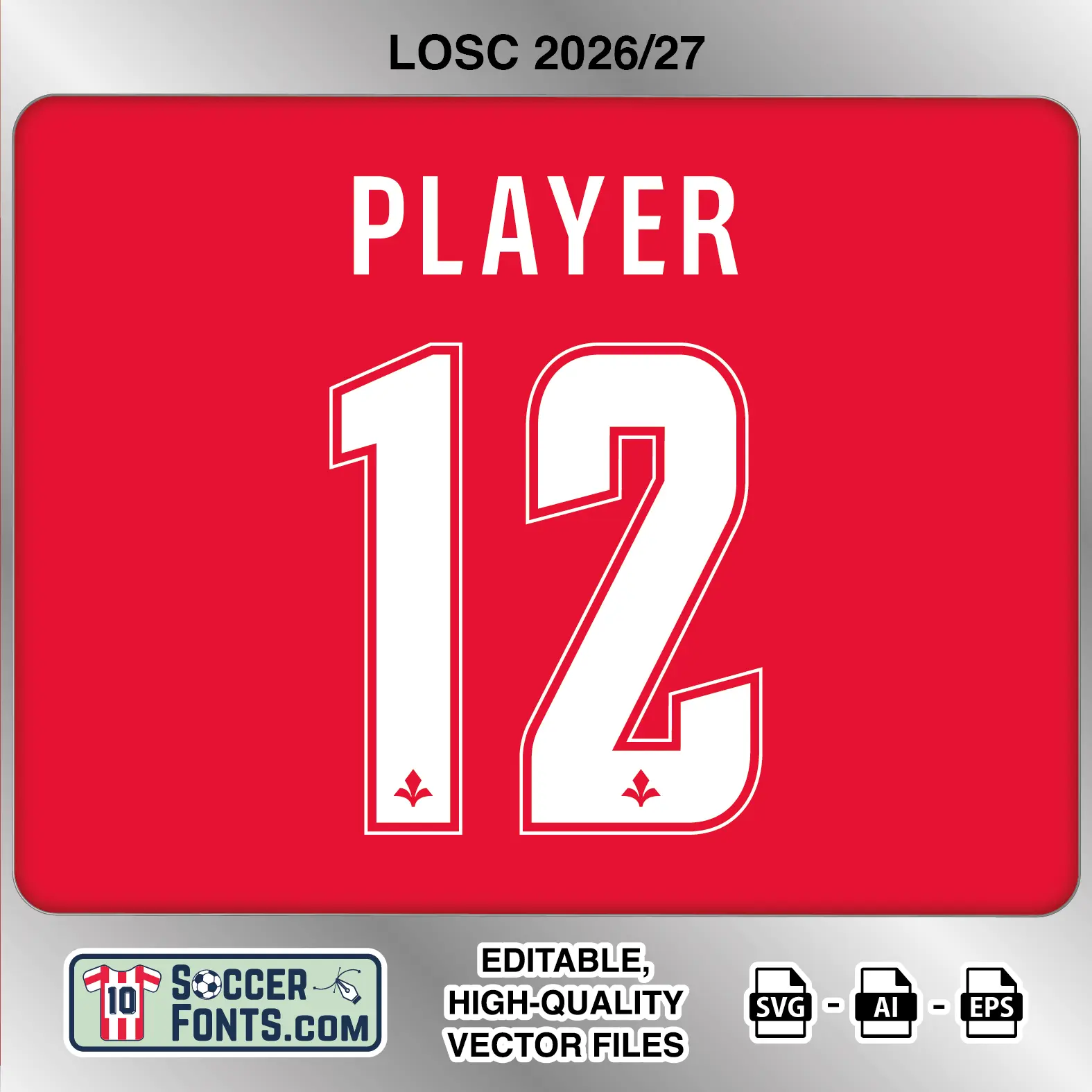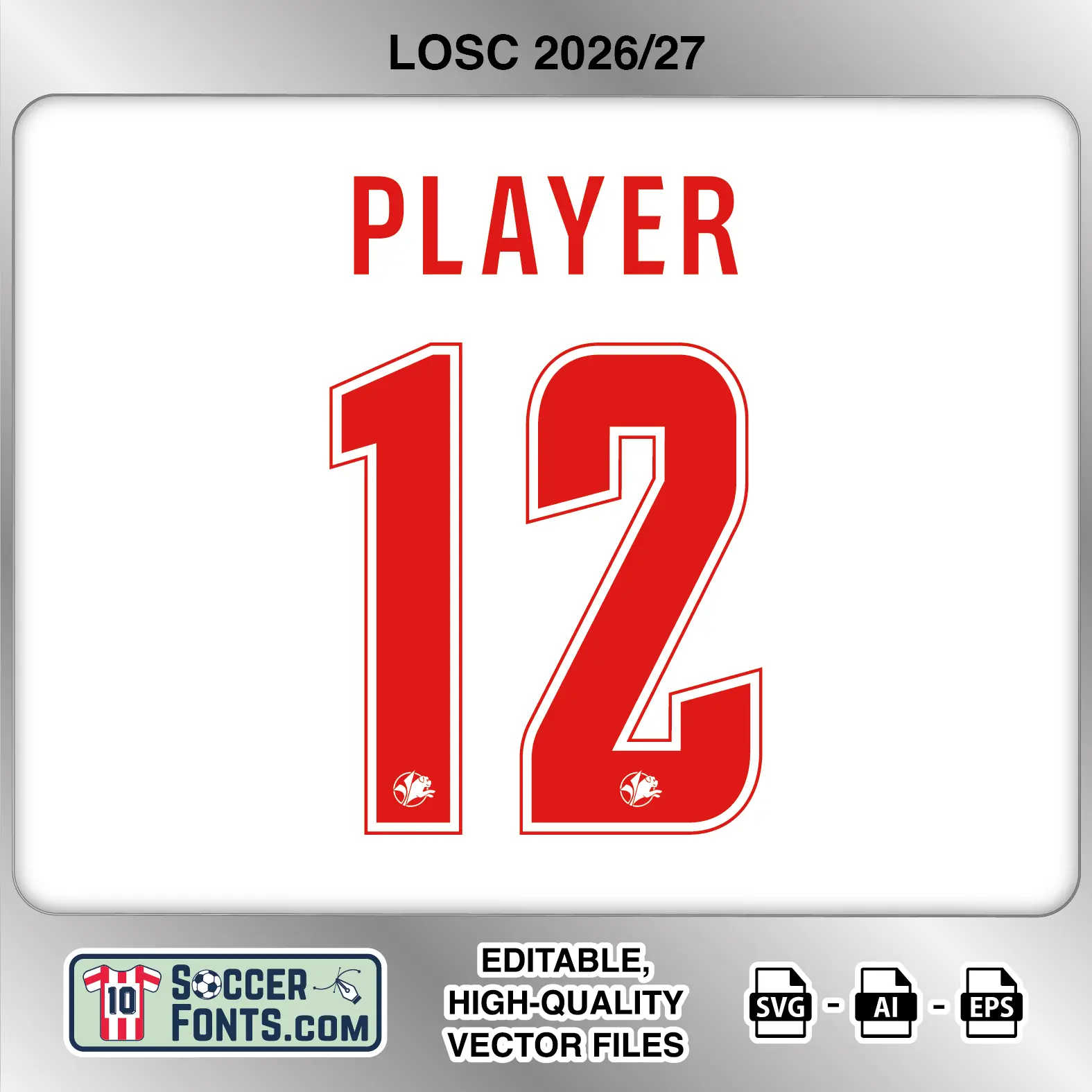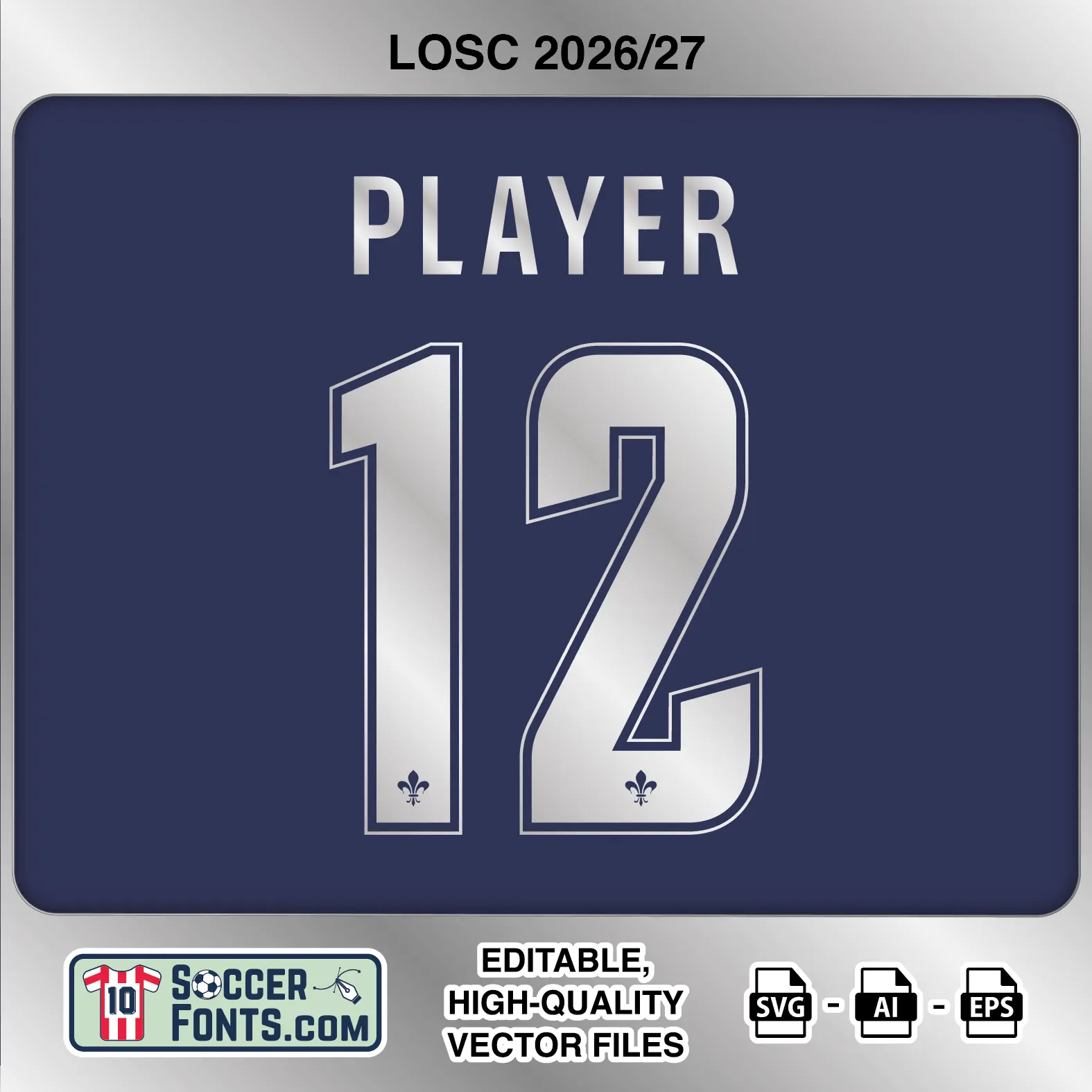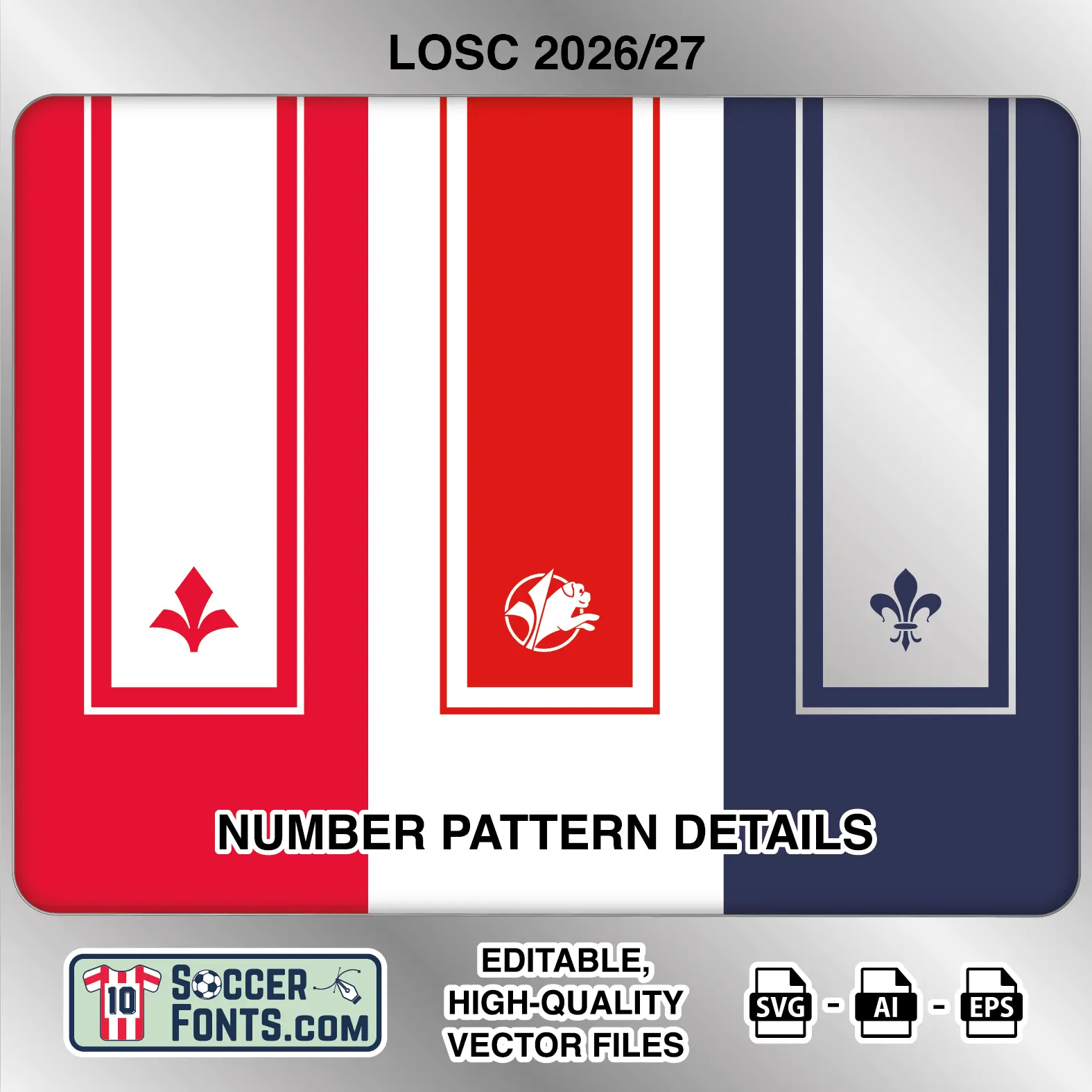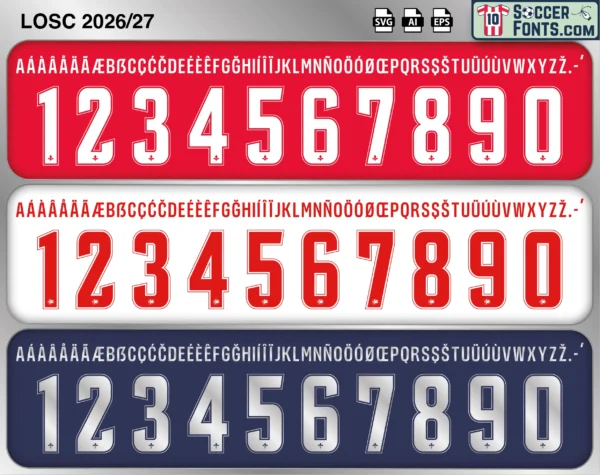
About LOSC Lille 2026-27 Font
Download LOSC Lille 2026-27 Font, an editable soccer jersey lettering design in vector format inspired by the typography used by LOSC Lille during the 2026-27 UEFA Champions League campaign. This European competition collection includes home, away and third shirt treatments, with individual heritage symbols incorporated into the number designs for each version. The artwork is prepared for Champions League football shirt recreations, custom jersey projects, football kit mockups and sports graphic design workflows.
Visual Identity of the Font Design :
The player-name alphabet uses tall, narrow uppercase characters with clean vertical strokes and compact proportions. The numbers are significantly heavier, combining straight sides with rounded outer corners and angular internal transitions. A fine secondary outline follows the perimeter and internal counters of the numerals, producing a layered appearance without making the shapes overly complex.
The three treatments are differentiated not only by color but also by the small symbol positioned near the bottom of every number. The home version uses white numbers on red and carries a fleur-de-lys motif associated with the club’s current visual identity. The away presentation reverses to red numbers on a light background and incorporates a historic LOSC crest inside the numerals. The third version uses a metallic silver-style treatment on dark navy and features an older fleur-de-lys symbol, linking the design to Lille heritage. This distinction makes each kit-specific number set visually identifiable while retaining the same underlying type structure. An extensive accented uppercase alphabet is included for international player names.
Context of 2026-27 Season for LOSC Lille :
The LOSC Lille 2026-27 Font belongs specifically to the club’s return to the UEFA Champions League, with Lille competing in the tournament for the tenth time in their history. The 2026-27 campaign also begins a new sporting chapter under Davide Ancelotti, who took charge of the first team during the summer after Lille secured third place in Ligue 1 the previous season.
The LOSC Lille 2026-27 Font accompanies a European schedule that began against Real Betis at the Decathlon Arena – Stade Pierre-Mauroy. Lille’s remaining league-phase programme includes Arsenal, Galatasaray, Bodø/Glimt, Bayern Munich, Stuttgart, Slovan Bratislava and Roma, providing a varied set of Champions League opponents across the season.
Olivier Giroud remained with Lille for 2026-27, while Benjamin André, Alexsandro, Hákon Haraldsson, Ethan Mbappé and Berke Özer are among the players involved in the campaign. With each shirt treatment carrying its own small heritage emblem within the numbers, the LOSC Lille 2026-27 Font connects the club’s European season with different elements of Lille’s visual history.
LOSC Lille 2026-27 football shirt font showing alphabet letters and jersey numbers
LOSC Lille 2026-27 Font